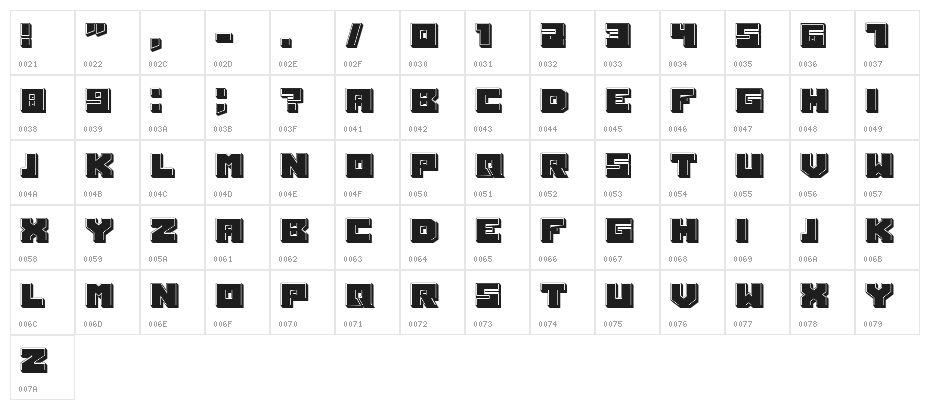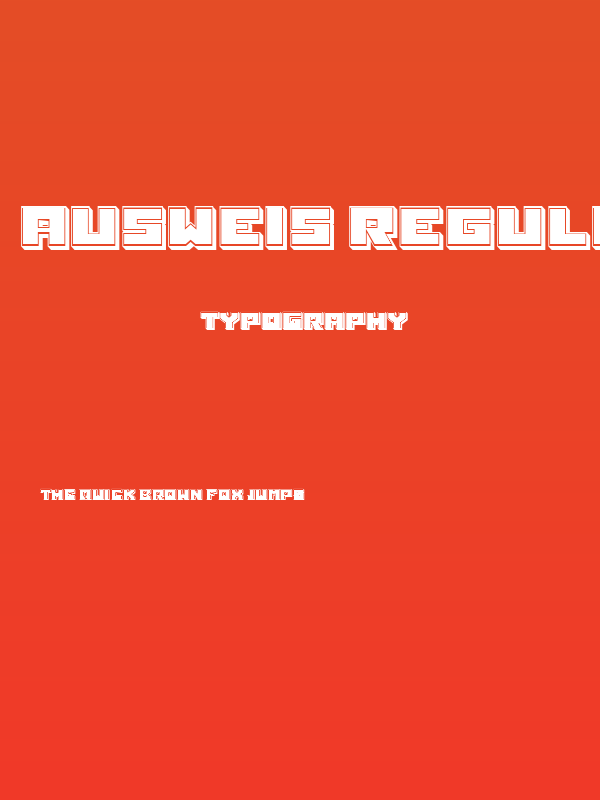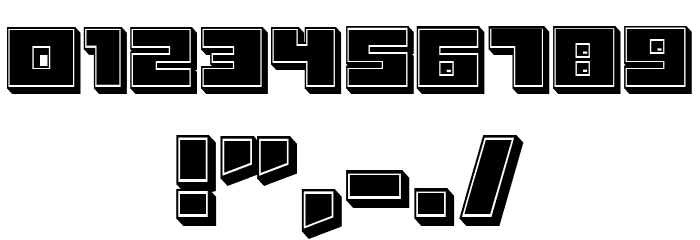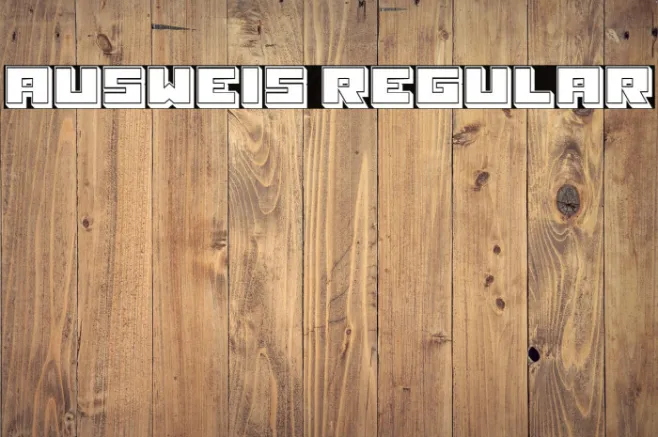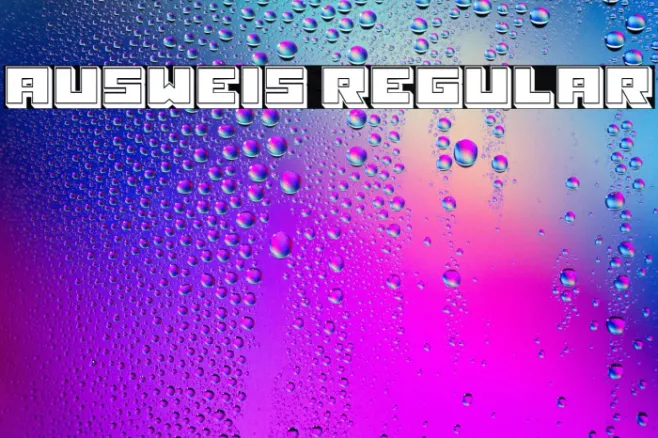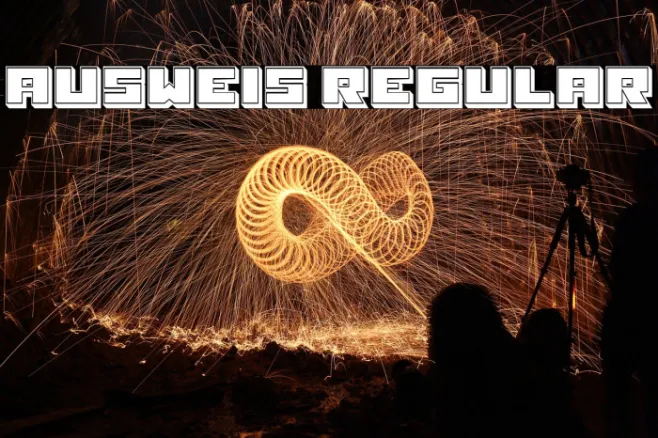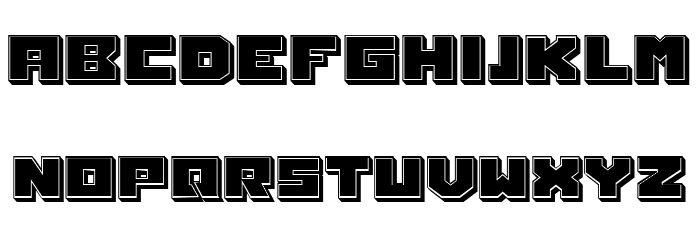
Ausweis Regular Font
Ausweis Regular Description
This font features a bold, geometric design with a strong, three-dimensional effect. Each character is outlined with a thick border, creating a shadow-like appearance that adds depth and emphasis. The letters are uniformly structured, with sharp angles and straight lines that convey a sense of modernity and strength. The font maintains consistent proportions across uppercase, lowercase, and numeric characters, ensuring readability and balance. Special characters are designed with the same boldness and clarity, making them stand out effectively. This style is ideal for making a strong visual impact.
| Proposed Projects | Ideal for posters, headlines, logos, and branding materials that require a bold and modern look. |